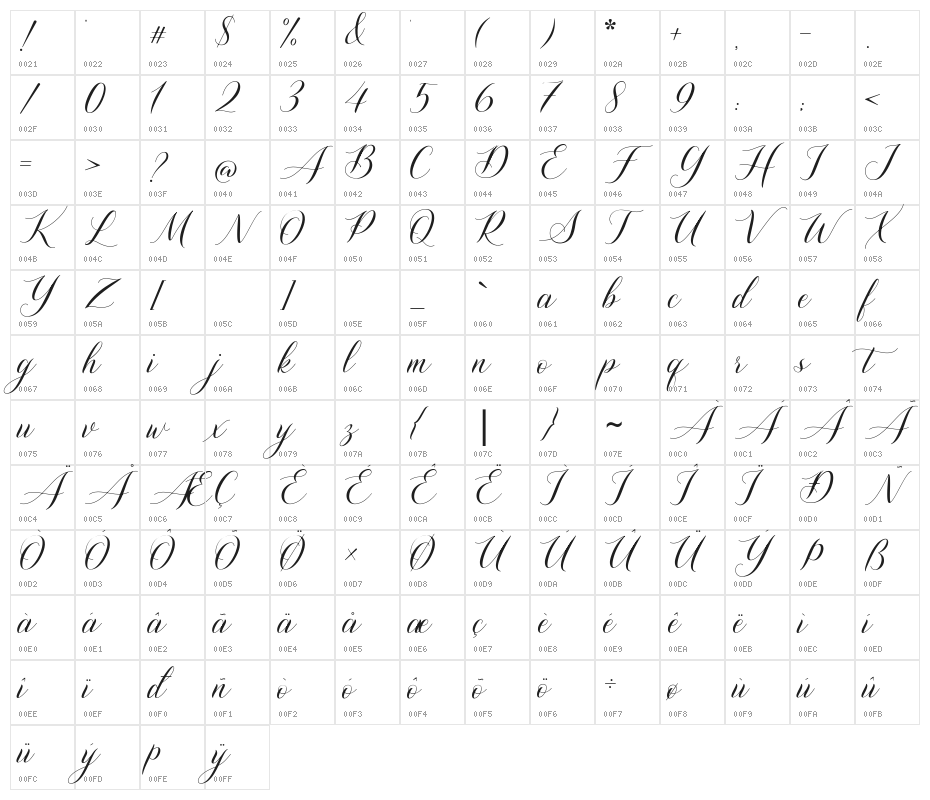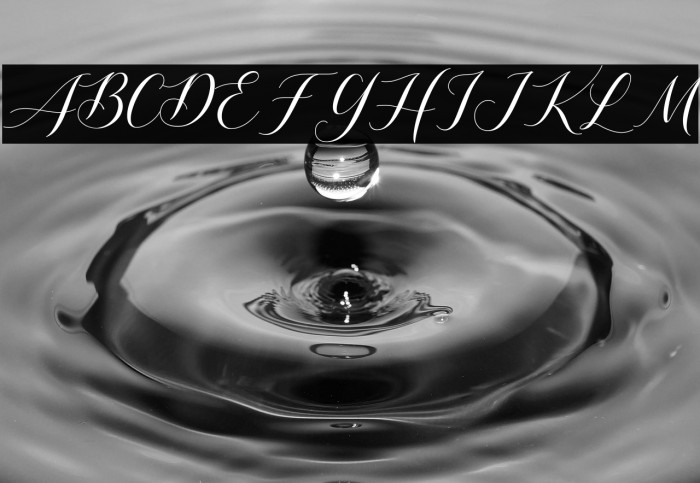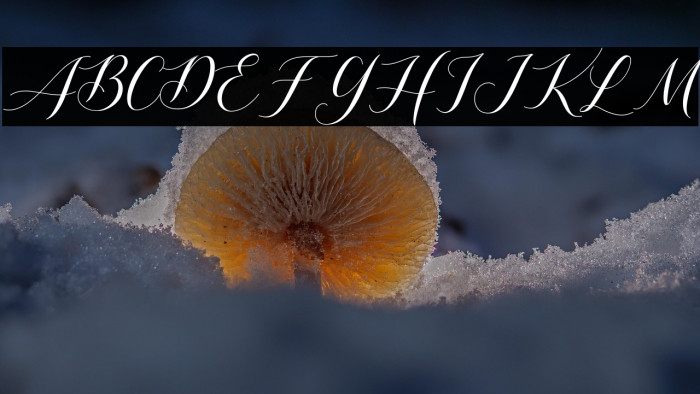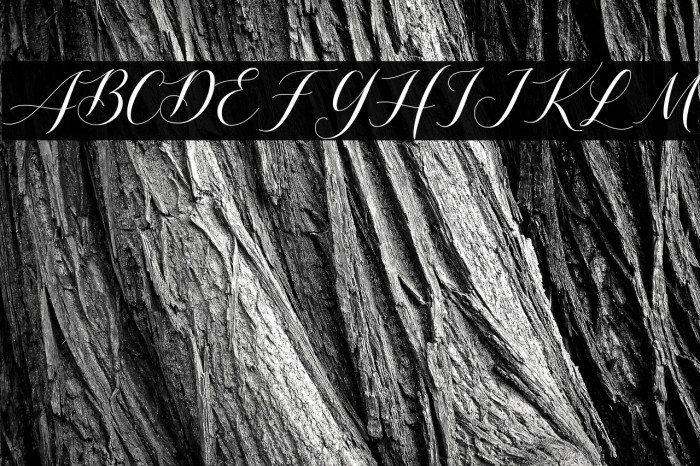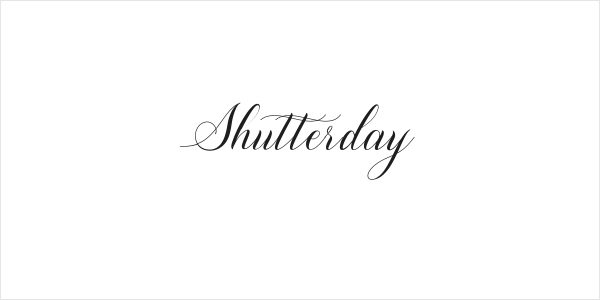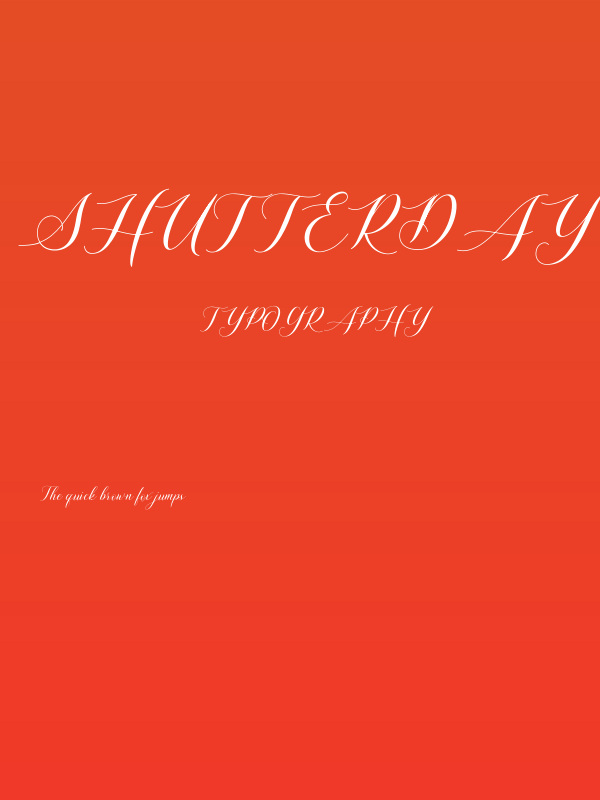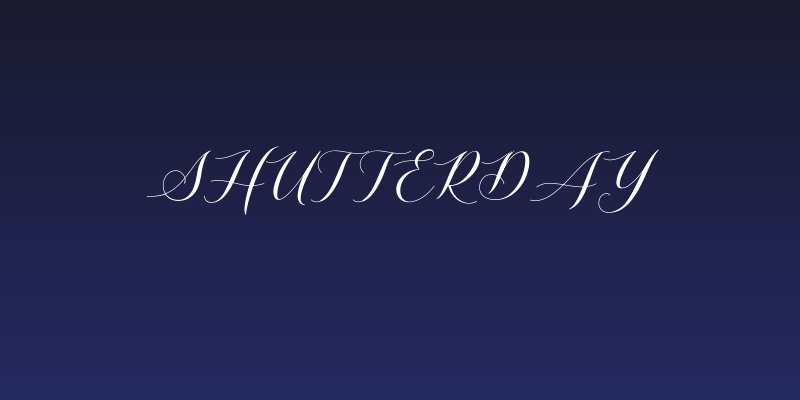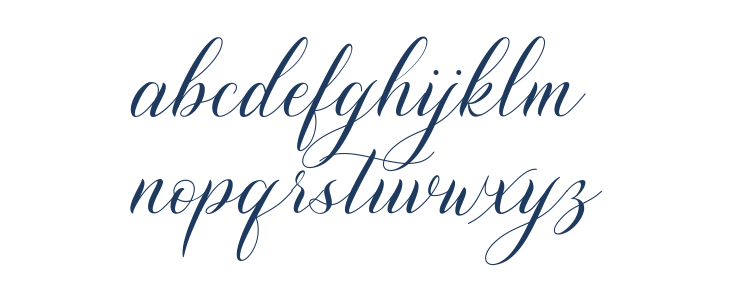
Shutterday Font
Shutterday Description
This elegant script font features flowing, interconnected characters with a classic and sophisticated appearance. The uppercase letters are ornate and graceful, with sweeping curves and delicate flourishes that add a touch of luxury. The lowercase letters maintain a consistent style, offering a smooth and fluid transition between characters. The numerals are stylish and match the overall aesthetic, while the special characters are designed with the same attention to detail. This font exudes a sense of refinement and is perfect for projects that require a touch of elegance.